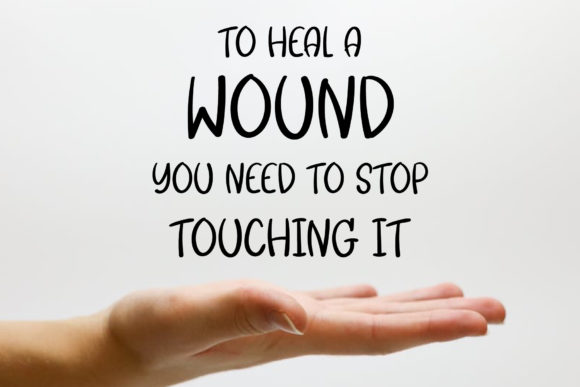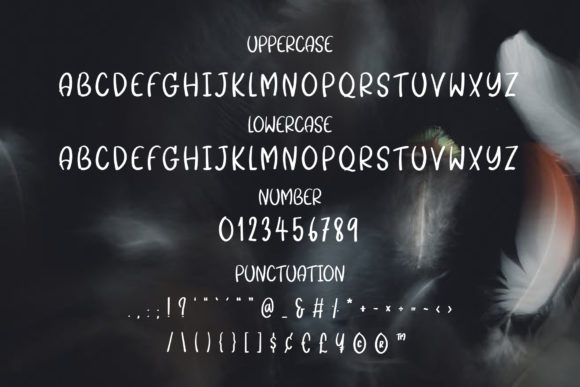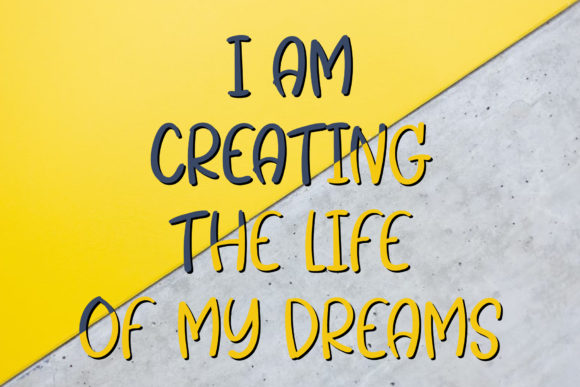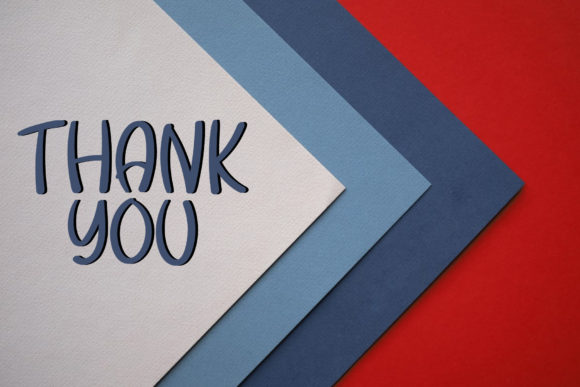
Introduction to Pink Star Font
Have you ever been working on a creative project, and the perfect font just slips your mind? You envision the perfect design, but the right typography seems elusive. This is where the Pink Star Font comes in – a clean, natural, and simple handwritten font that can elevate your design to the next level.
The Pink Star Font is a valuable resource for designers, offering a high-quality option for informal designs that require a touch of elegance. Its transparent background makes it easy to integrate into any project, whether you’re working on a blog post, social media graphics, or a flyer. With its free download availability, you can access this design resource without breaking the bank, making it an ideal choice for designers of all levels.
Key Features of Pink Star Font
- Unique and elegant design, perfect for creative projects and personal use.
- High-quality font with transparent background, ideal for graphic designers and digital artists.
- Designed with a touch of sophistication, making it a valuable design resource for creative professionals.
Honest Review: Pink Star Font
As a designer, I’m always on the lookout for high-quality design resources to elevate my creative projects. Recently, I stumbled upon the Pink Star Font, and I’m excited to share my honest review with you.
What works well: ✨ The font is beautifully crafted, with a delicate balance of elegance and playfulness. The transparent background makes it easy to combine with other design elements, and the free download option is a major plus. I’ve used it for several projects, and it’s always a crowd-pleaser.
What doesn’t work so well: ⚠️ While the font is high quality, it’s not ideal for use in large blocks of text. The fine lines can become fuzzy when scaled up, making it better suited for titles, headings, and other design elements where readability isn’t the top priority.
Overall, I’m a big fan of the Pink Star Font. It’s a versatile design resource that adds a touch of whimsy to any creative project. If you’re looking for a high-quality font with a unique character, I highly recommend giving it a try.
- Perfect for titles, headings, and other design elements
How to Use Pink Star Font
The Pink Star Font is a versatile and stylish design resource that can elevate your creative project to the next level. With its high quality and transparent background, this font is perfect for any design project.
Tips for Getting the Most Out of the Pink Star Font
To get the most out of the Pink Star Font, use it in combination with other design elements to create a cohesive and stylish look. Experiment with different font sizes, colors, and arrangements to achieve the desired effect.
The Pink Star Font is ideal for use in a variety of creative projects, including:
– Presentations
– Posters
– Flyers
– Brochures
Alternatives to Pink Star Font
1. Glitter Sans Font
Glitter Sans Font is a modern, high-quality sans-serif font ideal for creative projects requiring a touch of elegance. It’s available for free download and comes with a transparent background, making it perfect for web design and graphic design applications.
When to use: Glitter Sans Font is suitable for projects that require a clean, sophisticated look. It’s a great alternative to Pink Star Font for designers who want a more subtle sparkle without sacrificing readability.
Comparison: While Pink Star Font has a more dramatic sparkle effect, Glitter Sans Font offers a more understated shine that won’t overwhelm the design. Glitter Sans Font is also more versatile and can be used for a wide range of creative projects.
2. Sparkle Script Font
Sparkle Script Font is a beautiful, hand-drawn script font that adds a touch of whimsy to any design project. It’s perfect for designers who want to create a sense of luxury and sophistication in their work.
What is the recommended font size for the Pink Star Font?
The recommended font size for the Pink Star Font varies depending on the design project and the intended use. However, as a general guideline, we recommend using font sizes between 12pt and 24pt for body text, and 36pt to 48pt for headings. This will ensure that the font is legible and visually appealing in your design project.